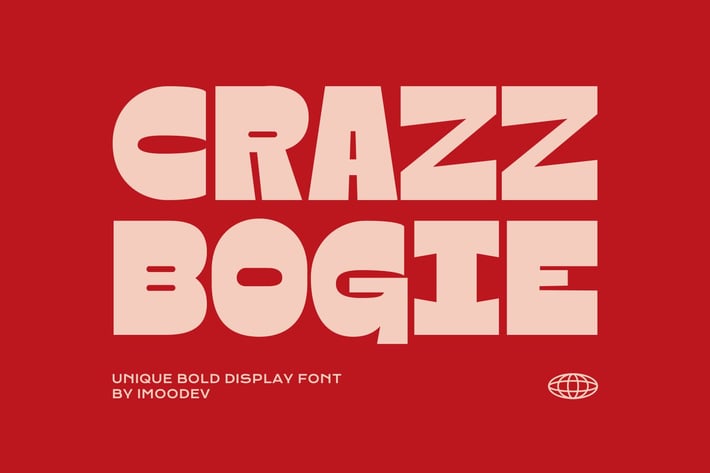
Crazy Bogie - Modern Typefaces
Crazy Bogie is modern typefaces with visual elegance, smooth curves, and beautiful ligatures clear, making your work look true and attractive.
A versatile font that works in both large and small sizes. This font is suitable for a wide variety of projects such as logos, invitations, branding, magazine, photography, card, product packaging, product mockup, mugs, quotes, posters, labels, signatures, editorials, websites, art deco, social media, and much more.
A font that is perfect for all business sectors including personal projects, studios, corporate, creative agency, industrial, company, etc.